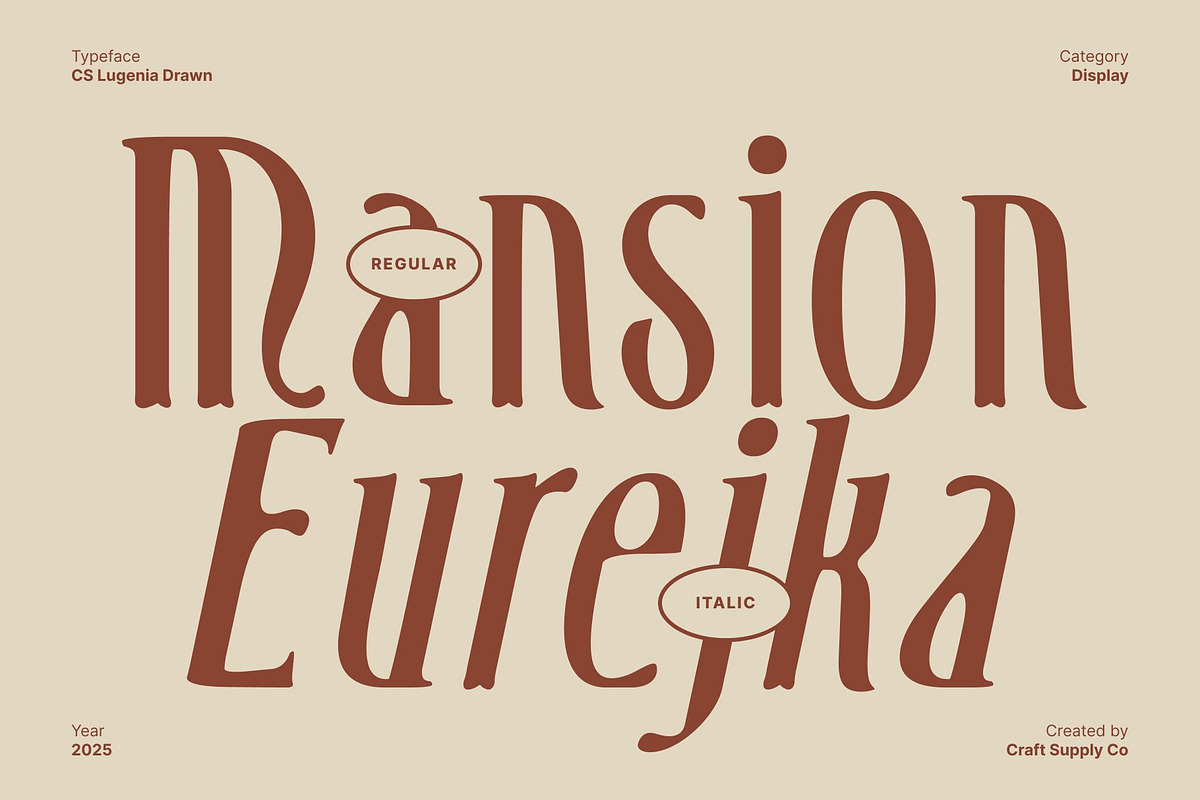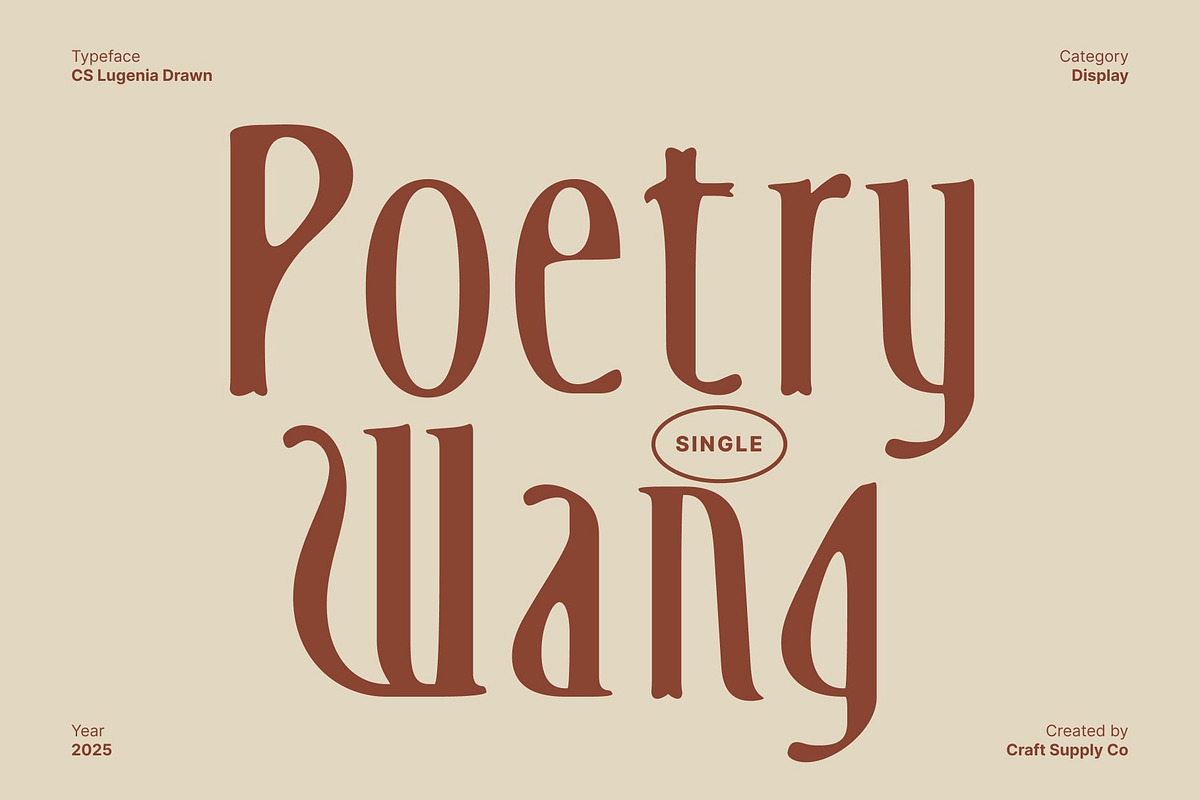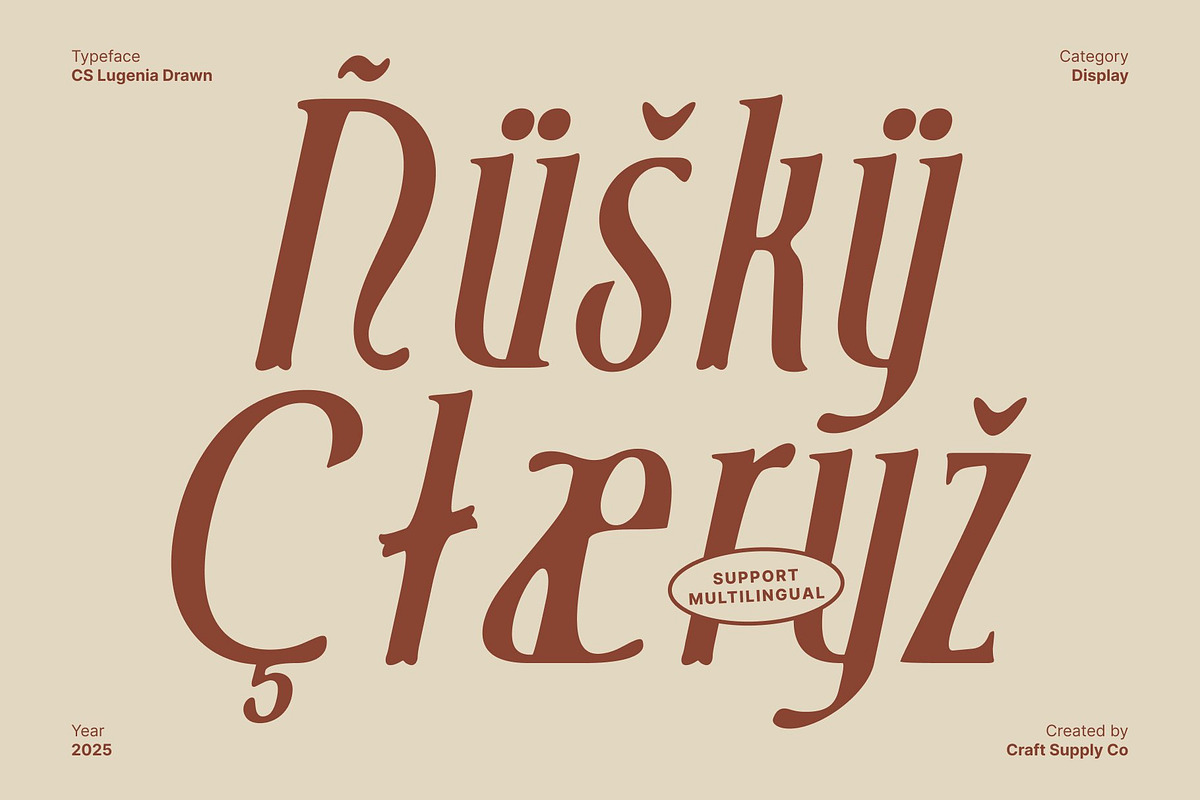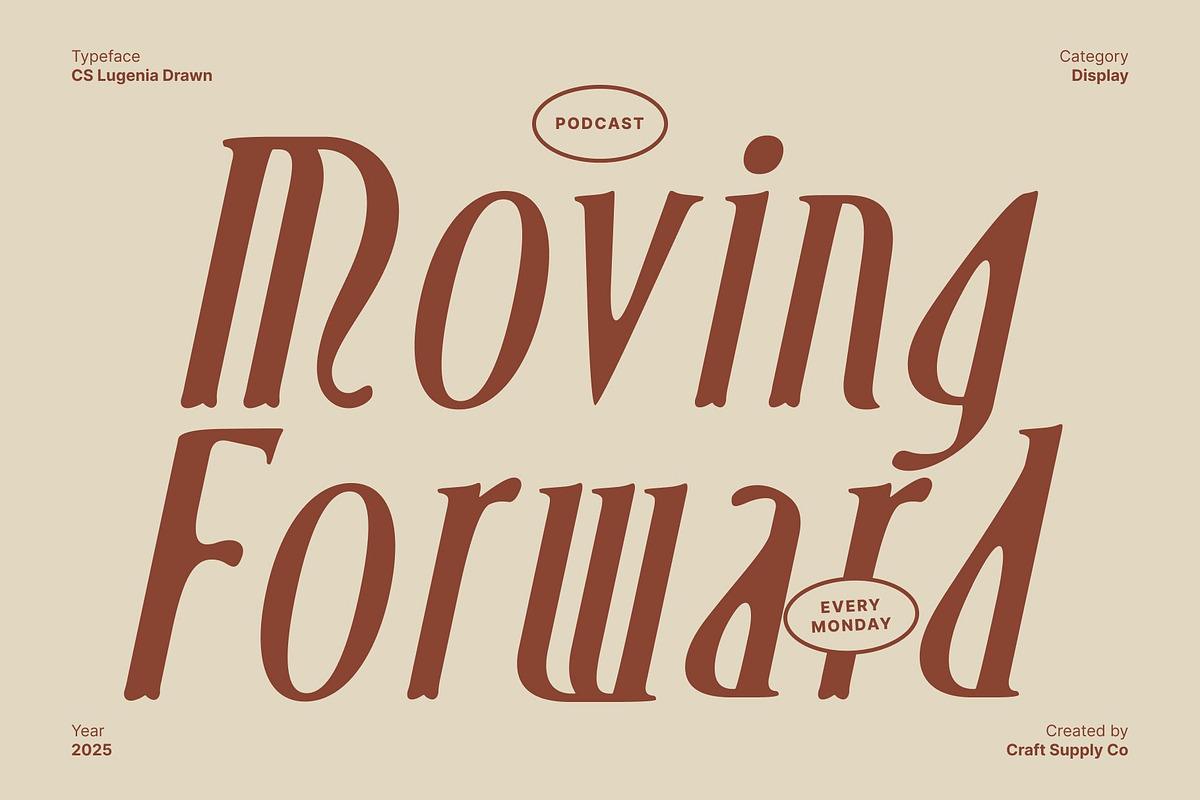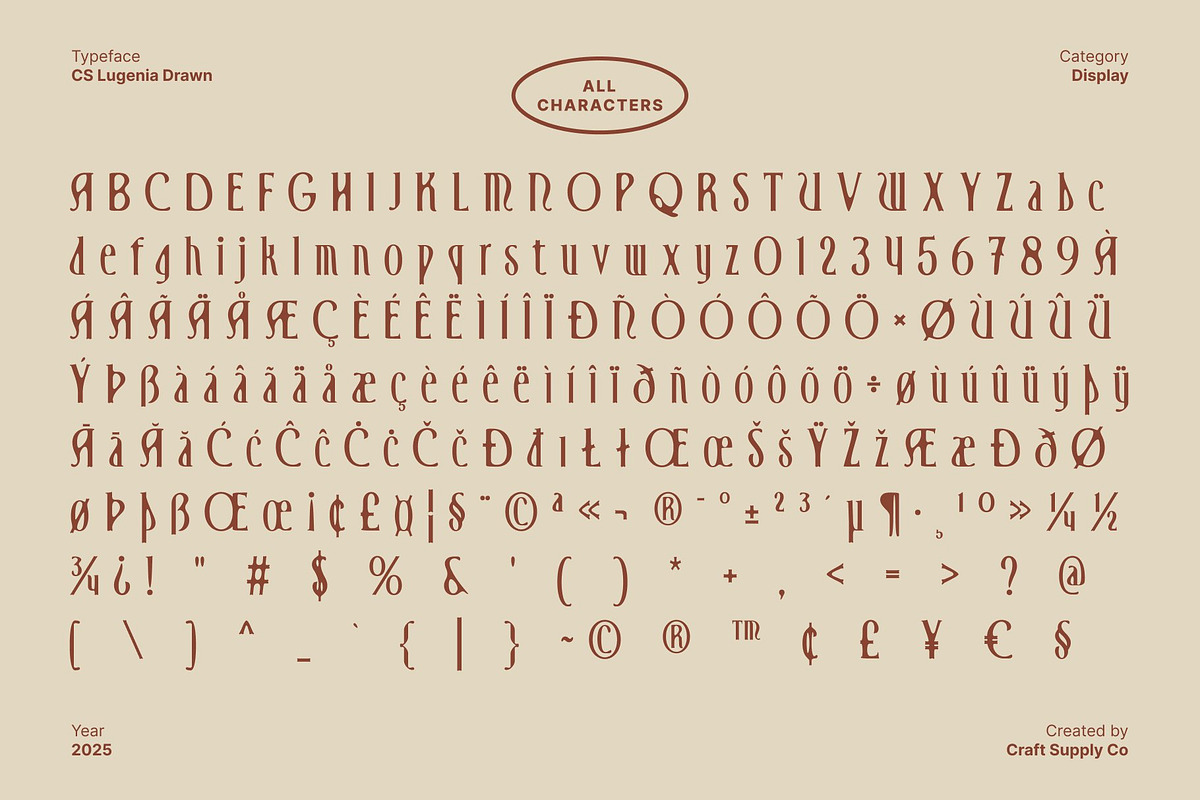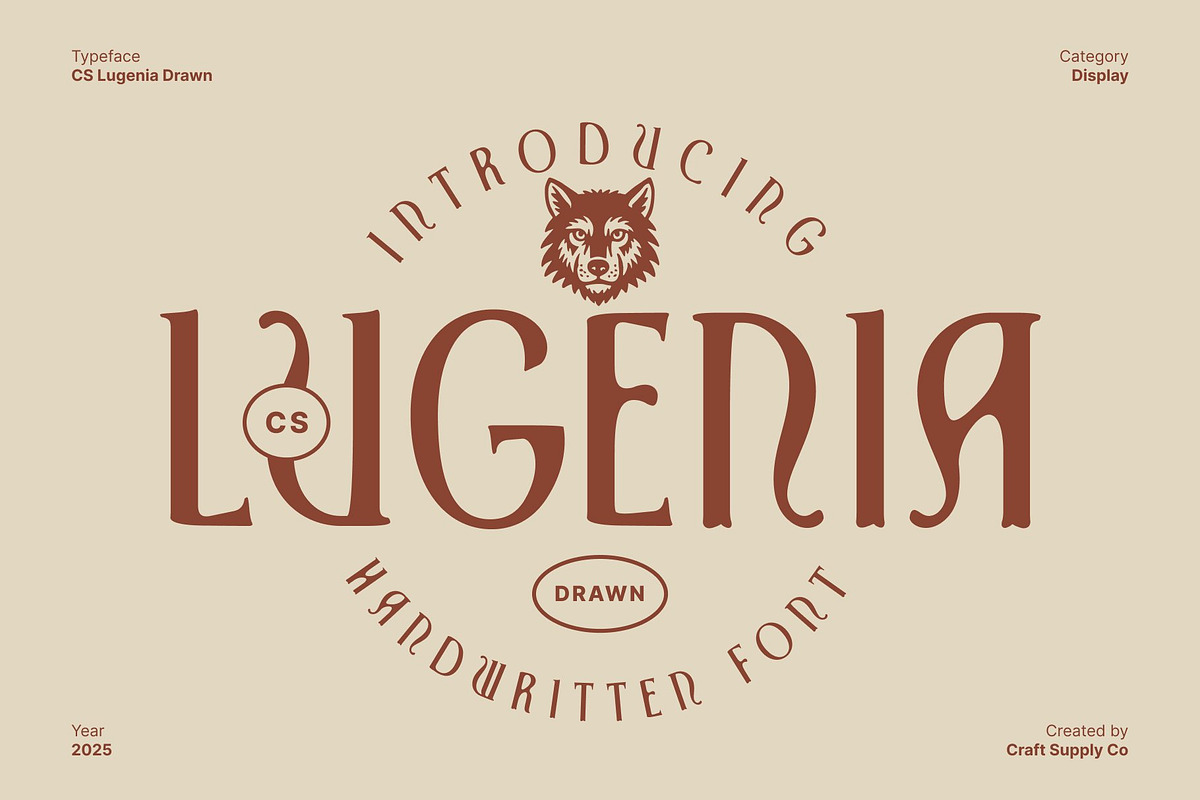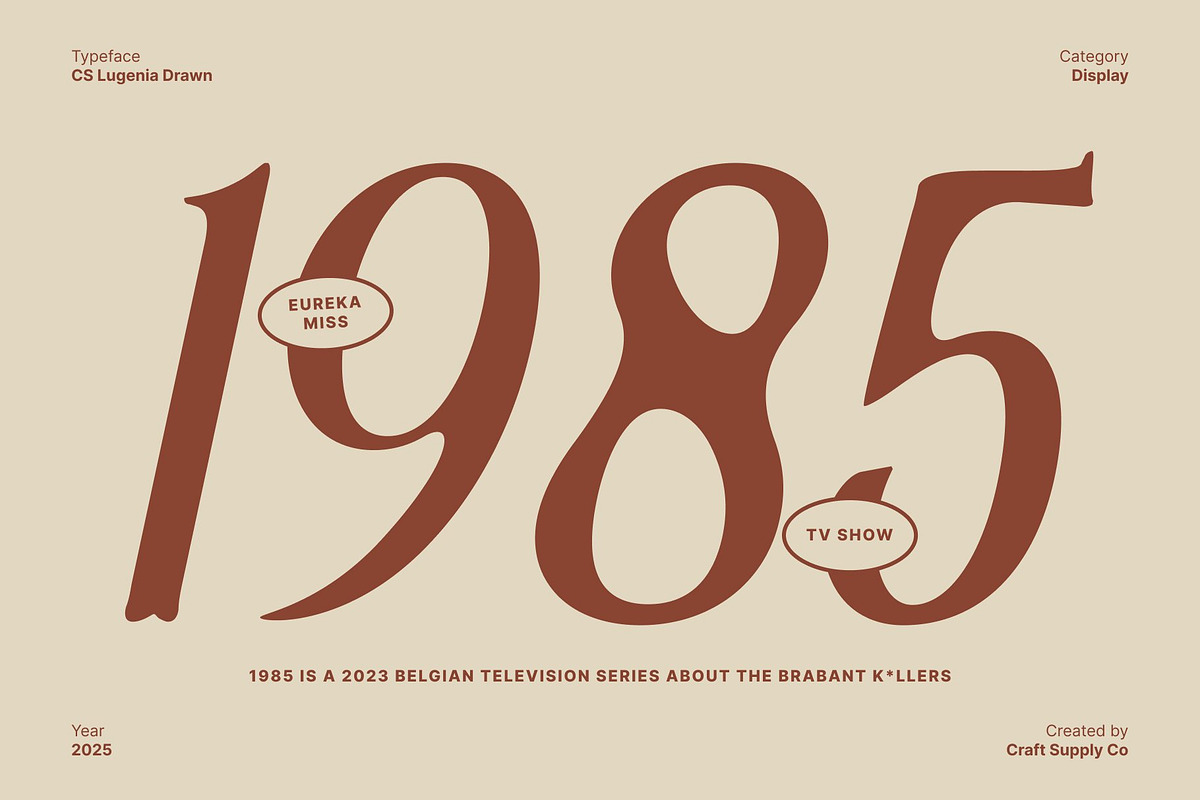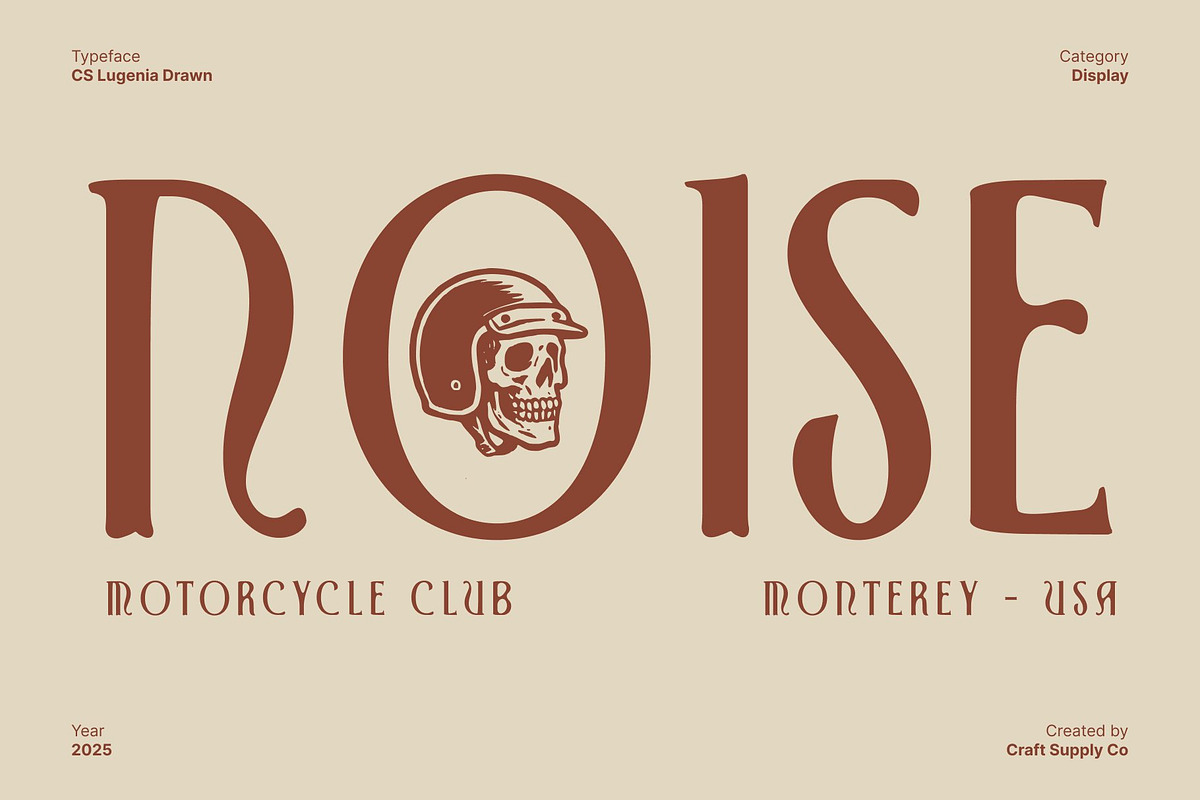
CS Lugenia Drawn
CS Lugenia Drawn – Classic Tuscan Sans with a Drawn Character
Classic Tuscan Style with Modern Expression This font is a classic sans serif font enriched with striking Tuscan-inspired shapes and a drawn character. Its clean structure blends seamlessly with unique contours, bringing together tradition and modern energy in one expressive typeface. The handcrafted look gives each letter personality, making the font stand out with confidence and artistic flair.
Drawn Effect for Retro, Stamped Authenticity The drawn effect adds a textured, stamped appearance that enhances the font’s retro charm. This subtle handcrafted touch introduces warmth and authenticity, giving your designs a more organic, vintage-inspired feel. The slight irregularities contribute to its character, creating a visual style that feels both nostalgic and contemporary at once.
Bold Shapes for Strong Visual Impact With its bold and expressive letterforms, this font Drawn injects power and dynamism into any layout. The clean shapes ensure readability, while the Tuscan details deliver flair and originality. This balance makes the font perfect for capturing attention and creating memorable visual statements across various media.
Perfect for Branding, Posters, and Creative Displays Whether you’re designing branding, retro posters, packaging, or editorial graphics, this font offers a compelling typographic presence. Its mix of classic craftsmanship and modern attitude ensures your work looks distinctive and engaging.